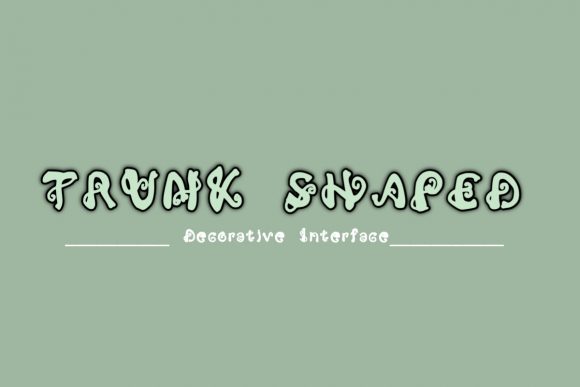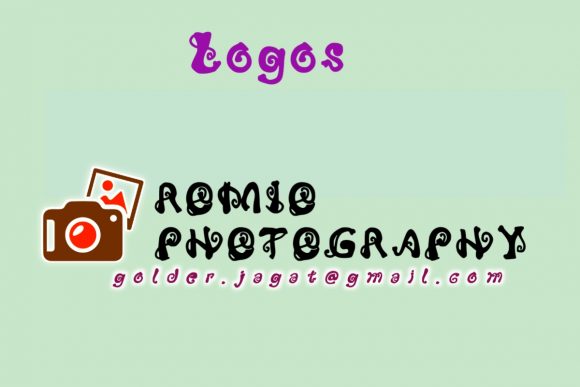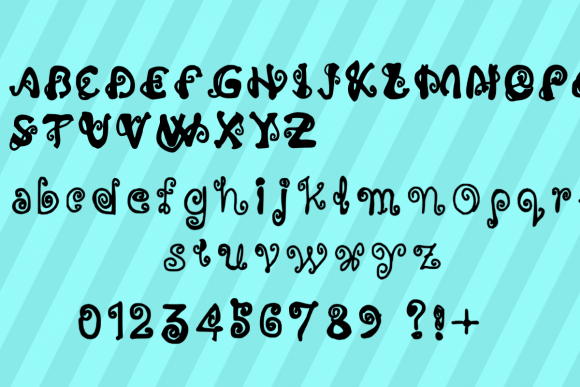
Trunk Shaped is an incredibly cool and quirky display font. This font would be ideal for writing web designs, business cards, or pretty much anything else that requires a unique touch.